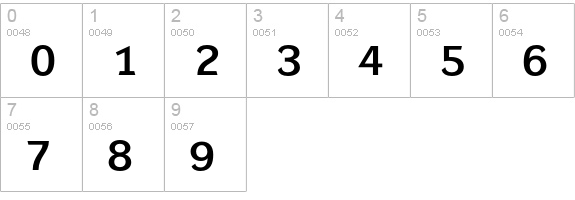
Dynamo D X E Font Details
Dynamo D X E font is a dynamic and modern typeface that effortlessly combines sleek design with bold personality. Its sharp edges and futuristic elements make it perfect for projects that need a contemporary touch. The versatile nature of Dynamo D X E font allows it to be used for a wide range of design applications, from branding to web design to advertising. What makes Dynamo D X E font even more appealing is that it is available for free download at FontsMarket.com. This means that you can easily add this striking font to your collection without any cost. Don't miss out on the opportunity to enhance your designs with the sleek and stylish Dynamo D X E font today!